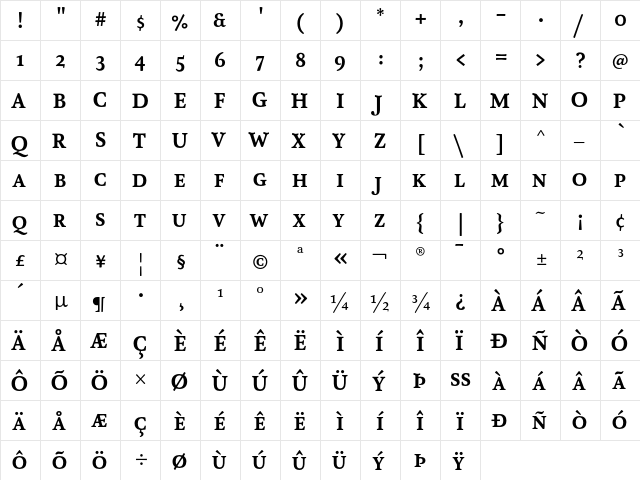
AtmaSerif-BoldRomanQC Regular Font Preview
AtmaSerif-BoldRomanQC Regular
AtmaSerif-BoldRomanQC Regular Font Details
Design Context for AtmaSerif-BoldRomanQC Typeface
AtmaSerif-BoldRomanQC carries the refined structure of traditional serif typography, with bracketed terminals and considered proportions that communicate credibility and craft. The heavy weight commands attention and anchors typographic hierarchies.
Pro Tip: Set AtmaSerif-BoldRomanQC with slightly loose tracking in headlines to let each letterform's detail read clearly at display sizes.